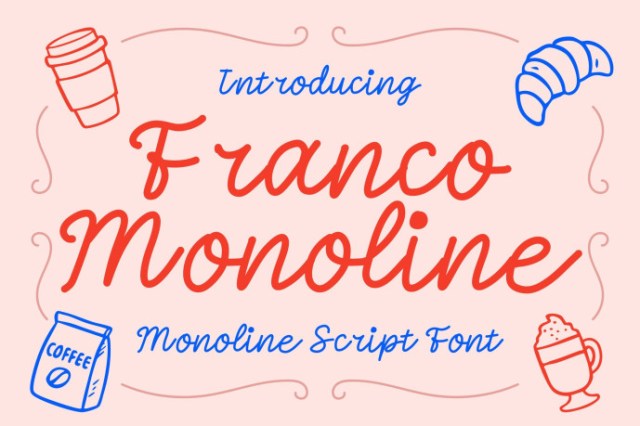
Franco Monoline – Script Font
Franco Monoline – Script Font is a playful and modern script font crafted with a clean monoline stroke. Designed with smooth curves and balanced letterforms, it combines elegance with a friendly personality, making it perfect for both casual and professional design projects.
This font is inspired by the cozy atmosphere of cafés and bakeries, which is reflected in the soft and inviting flow of each character. Its versatility makes it suitable for branding, packaging, social media graphics, invitations, and logotypes. Whether you want to give your design a handcrafted feel or a chic modern touch, Franco Monoline delivers both with ease.
• A stylish monoline script font with consistent strokes.
• Perfect for logos, menus, coffee shop branding, and product packaging.
• Smooth, rounded letterforms that maintain readability at various sizes.
• Works beautifully for quotes, invitations, greeting cards, and posters.
• Adds a modern yet warm handwritten feel to any design.